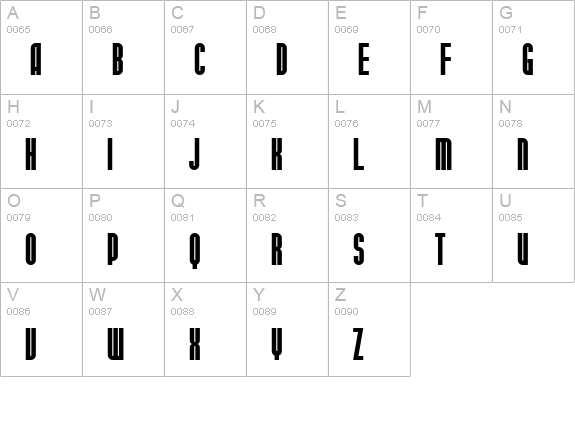
SF Port McKenzie Bold Font Details
SF Port McKenzie Bold is a strong, high-contrast variant in the SF typeface family \xE2\x80\x94 well suited to headlines, attention-grabbing titles, and strong calls-to-action.
Introducing SF Port McKenzie Bold, a striking and versatile font designed for those seeking to make a bold statement with their typography. This eye-catching font boasts a strong and commanding presence, making it perfect for headlines, titles, logos, and any design that demands attention. SF Port McKenzie Bold is characterized by its clean lines and modern aesthetic, exuding confidence and professionalism. Its carefully crafted letterforms are elegantly designed to ensure readability while adding a touch of sophistication to any project. With its bold weight, this font is guaranteed to make a lasting impression and leave a memorable impact on your audience. One of the best features of SF Port McKenzie Bold is that it is freely available to download at FontsMarket.com. This means that you can easily access and utilize this remarkable font without any cost or hassle. Whether you're a professional designer, a student, or simply someone looking to enhance their creative projects, SF Port McKenzie Bold offers the perfect solution for all your typographic needs. With its extensive character set, SF Port McKenzie Bold supports a wide range of languages and special characters, ensuring versatility and flexibility in your designs. Its compatibility with various design software and applications makes it a convenient choice for designers of all levels of expertise. SF Port McKenzie Bold is a font that effortlessly combines style, impact, and functionality. Whether you're designing a magazine cover, creating a captivating poster, or branding a business, this font will elevate your work to new heights. With its free availability at FontsMarket.com, there is no reason not to add SF Port McKenzie Bold to your font collection today. Embrace the power of this font and make your designs stand out from the crowd.